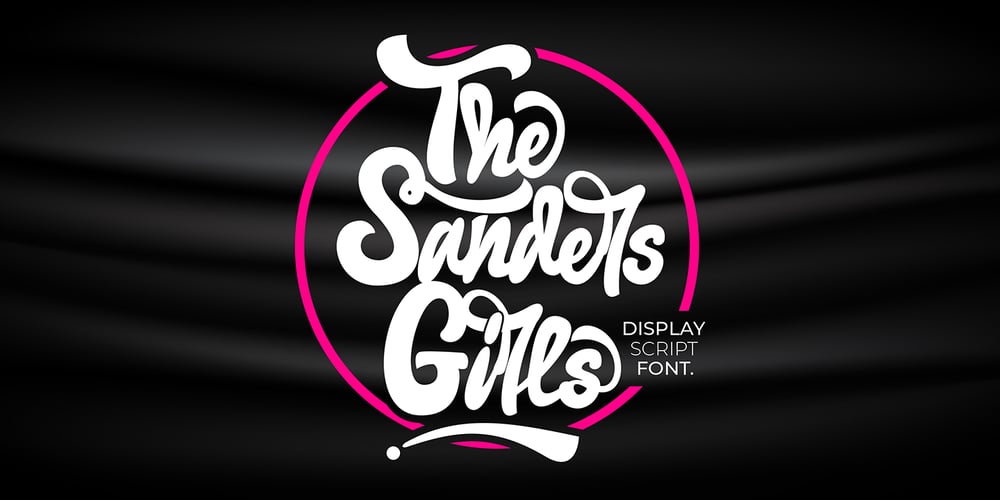
The Sanders Girls
The Sanders Girls font
The Sanders Girls Font Family was designed by Sipanji and published by Sipanji21. The Sanders Girls contains 2 styles and family package options. “The Sanders Girl” is a cute script font featuring charming swashes and stylish alternates. Perfect for adding a touch of elegance and playfulness to your designs, this font is ideal for wedding invitations, greeting cards, logos, and branding. Its delightful curves and decorative elements make it stand out, bringing a sense of warmth and personality to any project. Whether you’re creating a heartfelt message or a whimsical logo, “The Sanders Girl” adds a beautiful, hand-lettered touch to your work.